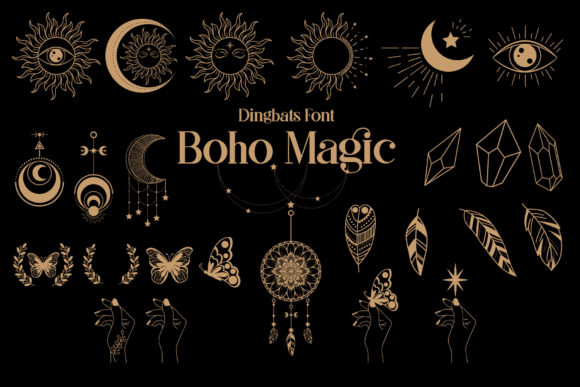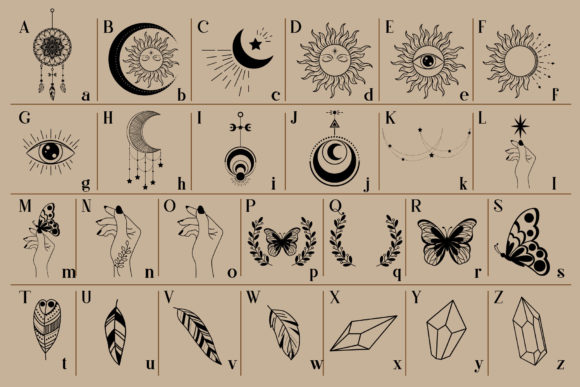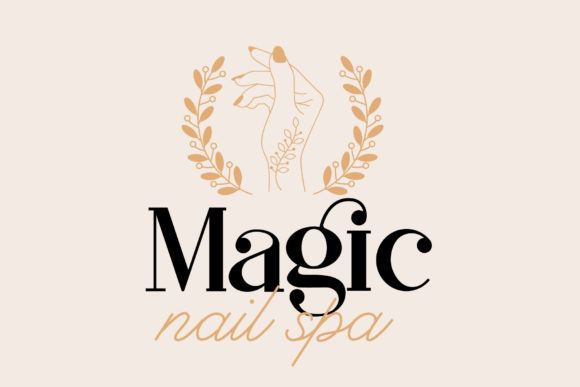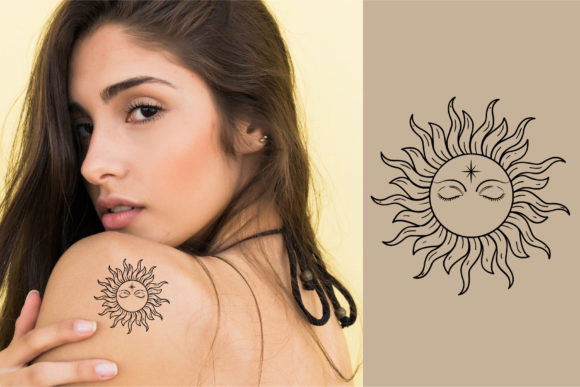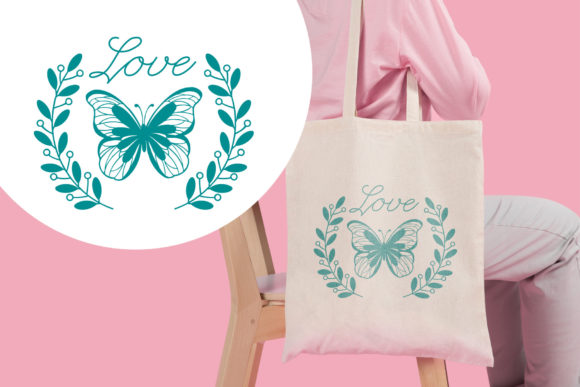
Boho Magic is a unique dingbats font, designed in a bohemian style. You can use it for various projects, such as tattoos, wedding cards, or designs for printing on shirts, bags, mugs, and more.
Boho Magic Font